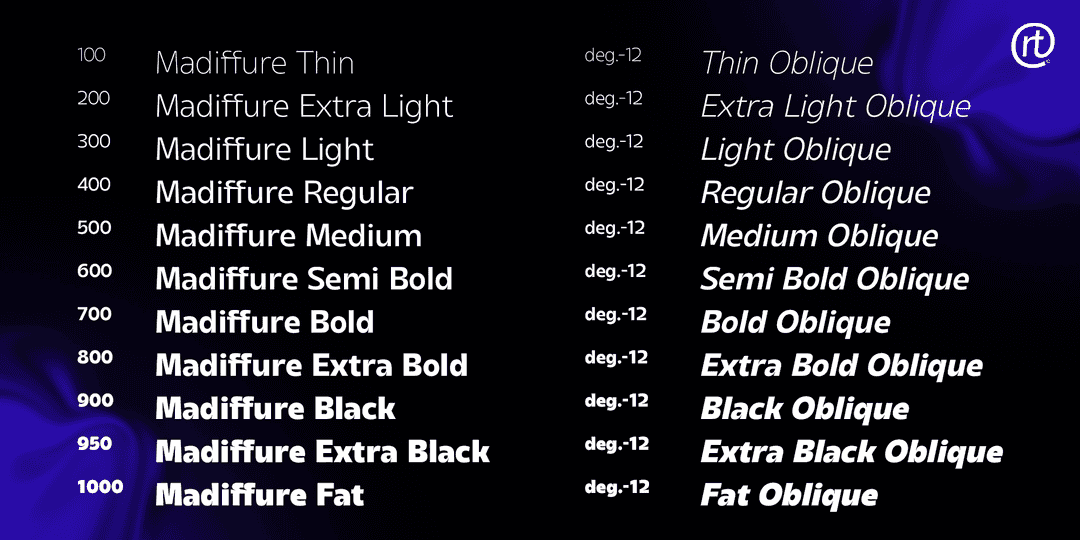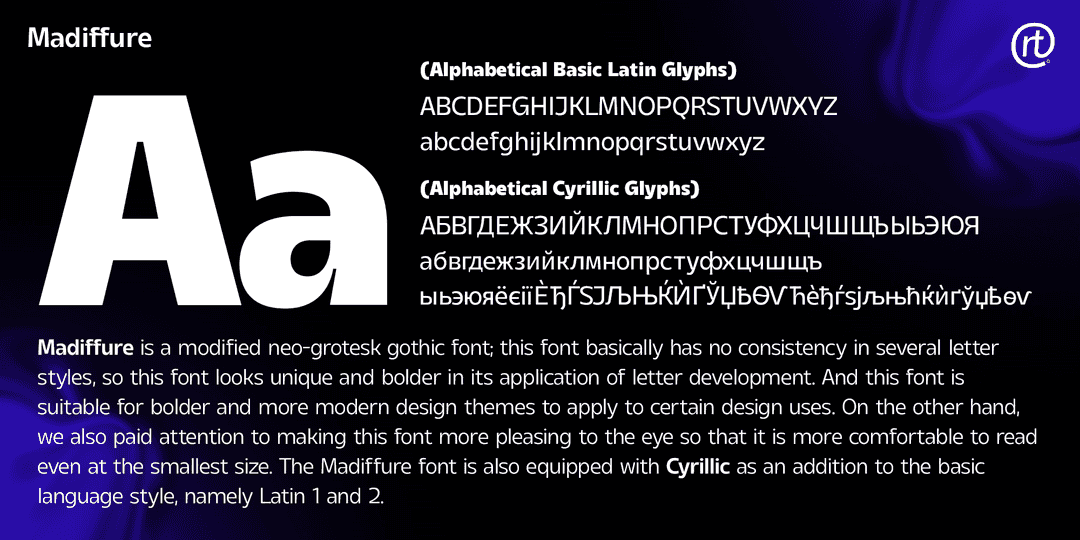
Madiffure is an altered neo-grotesk Gothic font with a uniform look across various letter styles, making its use particularly distinctive and bolder in terms of letter development. As such, this font makes an excellent choice for bold contemporary designs suitable for specific design applications.